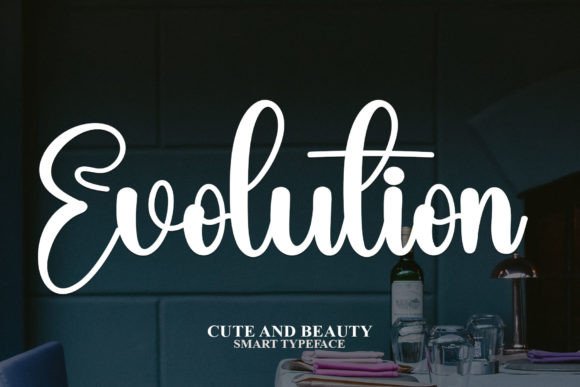
Introducing Evolution Font - A Romantic Fusion of Elegance and Style for Unforgettable Digital Creations
Embark on a typographic journey with Evolution Font, a captivating handwritten font that weaves a tale of romance and sophistication into your digital creations. This versatile script font, meticulously crafted by FreshTypeINK, transcends the boundaries of ordinary typefaces, inviting you to express your heartfelt messages with a touch of elegance and charm.
Designed with a keen eye for detail, Evolution Font seamlessly blends the allure of flowing strokes and striking curves. Its intricate characters dance across your screen, evoking a sense of nostalgia and timeless beauty. From heartfelt greeting cards to captivating headlines, Evolution Font gracefully adapts to a myriad of applications, leaving an indelible mark on your audience.
Immerse yourself in the boundless versatility of Evolution Font, a font that effortlessly blends classic charm with modern aesthetics. Whether you're crafting heartfelt invitations, designing captivating logos, or adding a touch of romance to your website, Evolution Font is your steadfast companion, transforming your digital creations into captivating works of art.
With Evolution Font as your creative ally, elevate your business website to new heights of sophistication. Its elegant curves and sweeping strokes command attention, inviting your visitors to linger and explore your offerings. This font is a testament to the power of first impressions, captivating your audience from the moment they land on your page.
Indulge in the romantic allure of Evolution Font. Let its graceful lines and enchanting characters transport you to a world of timeless beauty and artistic expression. From personal blogs to heartfelt social media posts, Evolution Font lends its charm to every digital endeavor, adding a touch of elegance that sets you apart from the mundane.
Embrace the Evolution Font experience and unlock a new realm of creative possibilities. Its romantic flair and timeless aesthetic will infuse your digital creations with a touch of magic, leaving your audience captivated and inspired. Step into the world of Evolution Font and let your imagination soar.